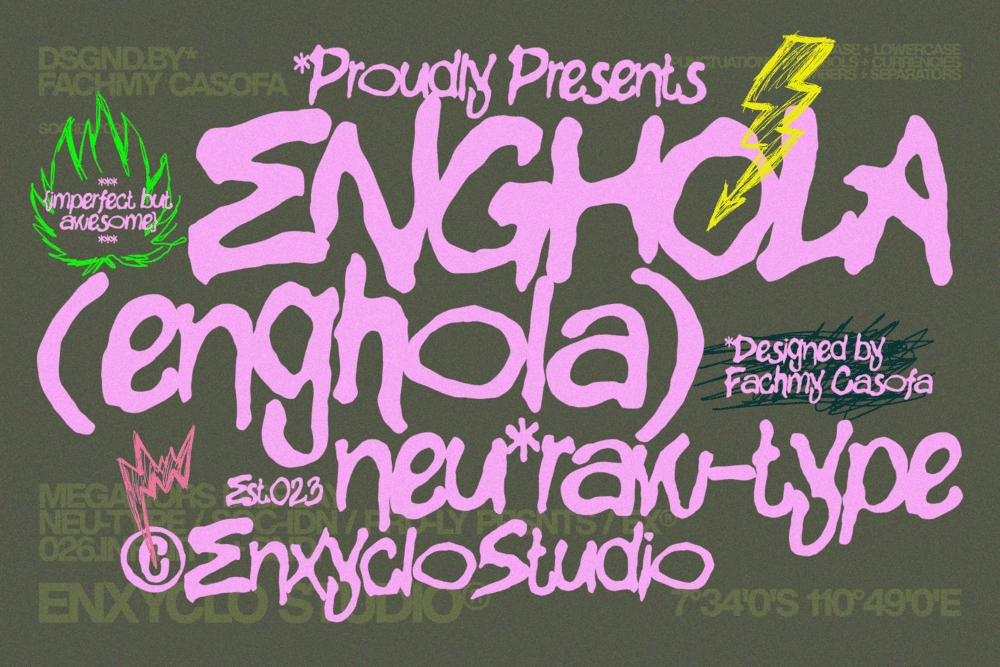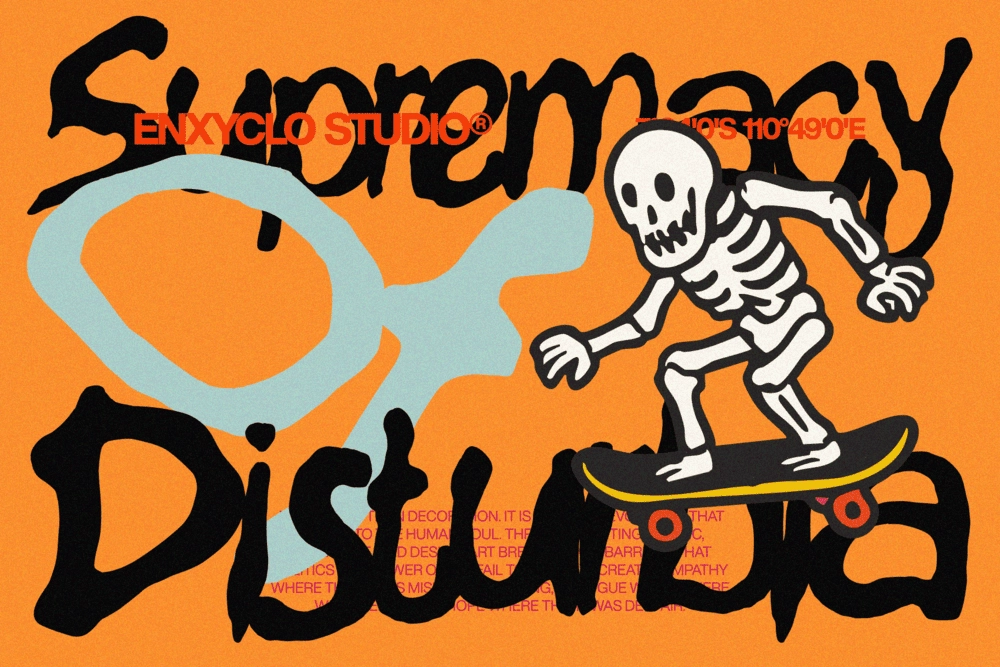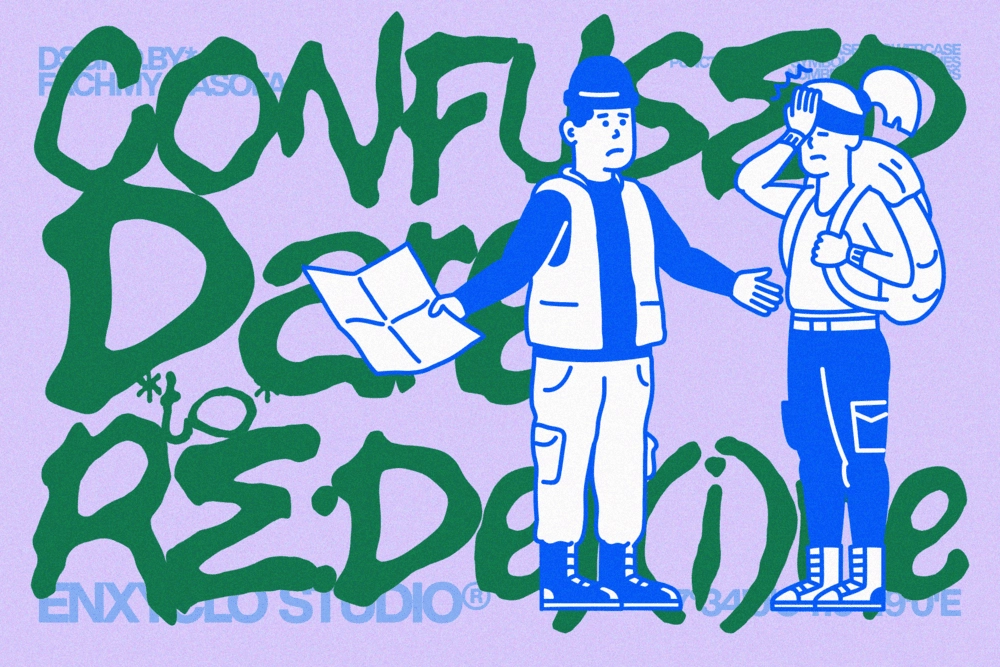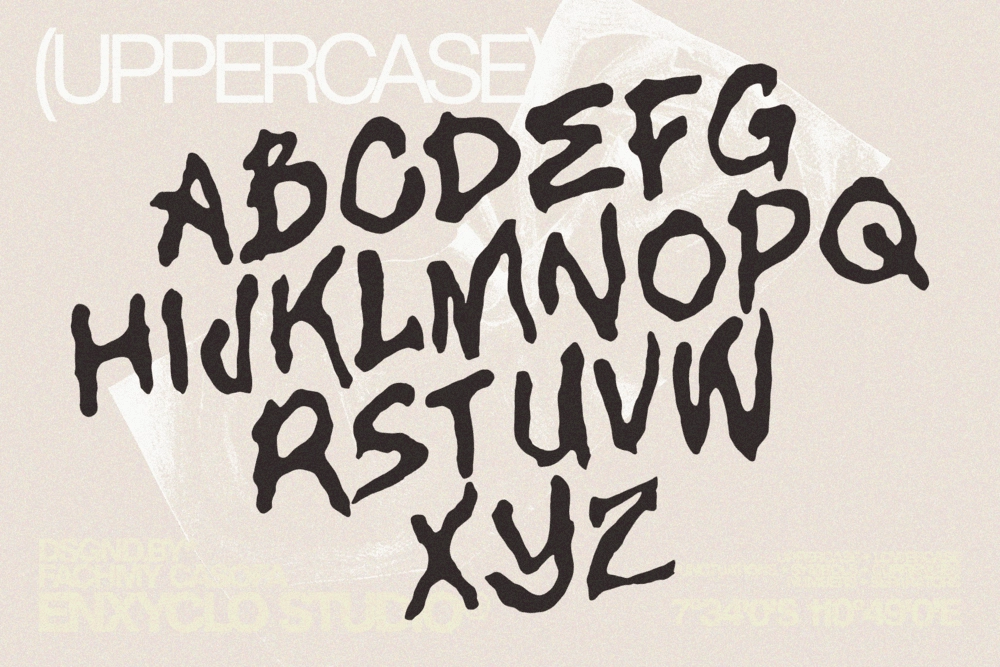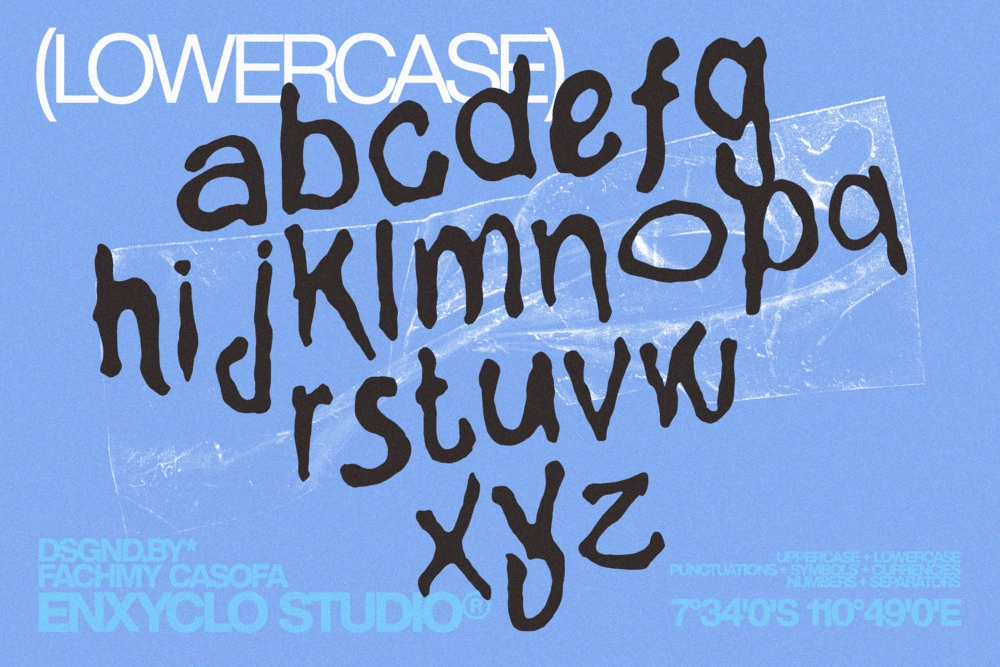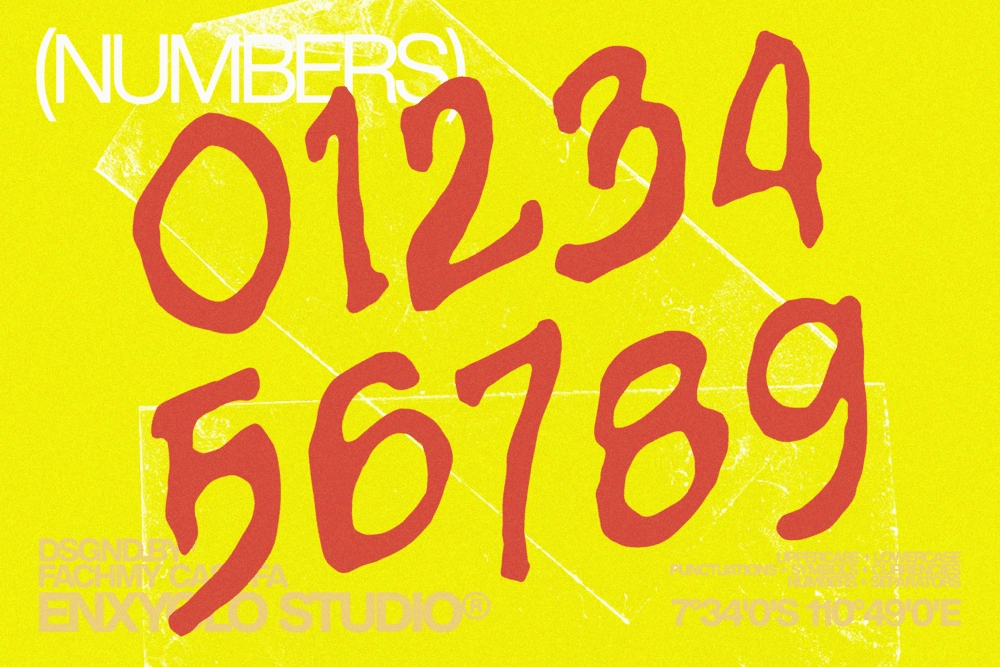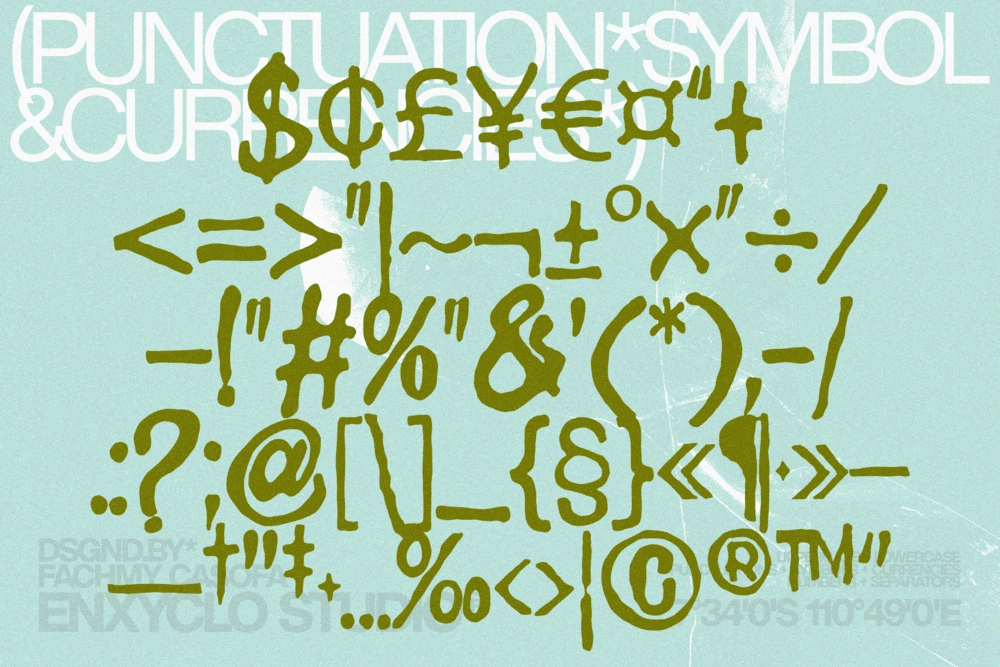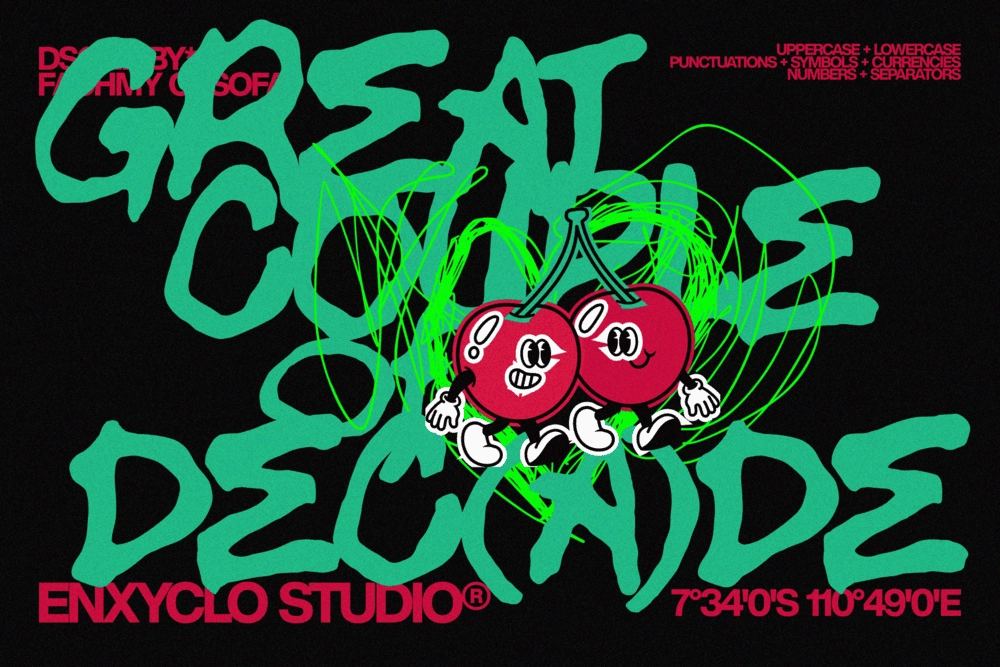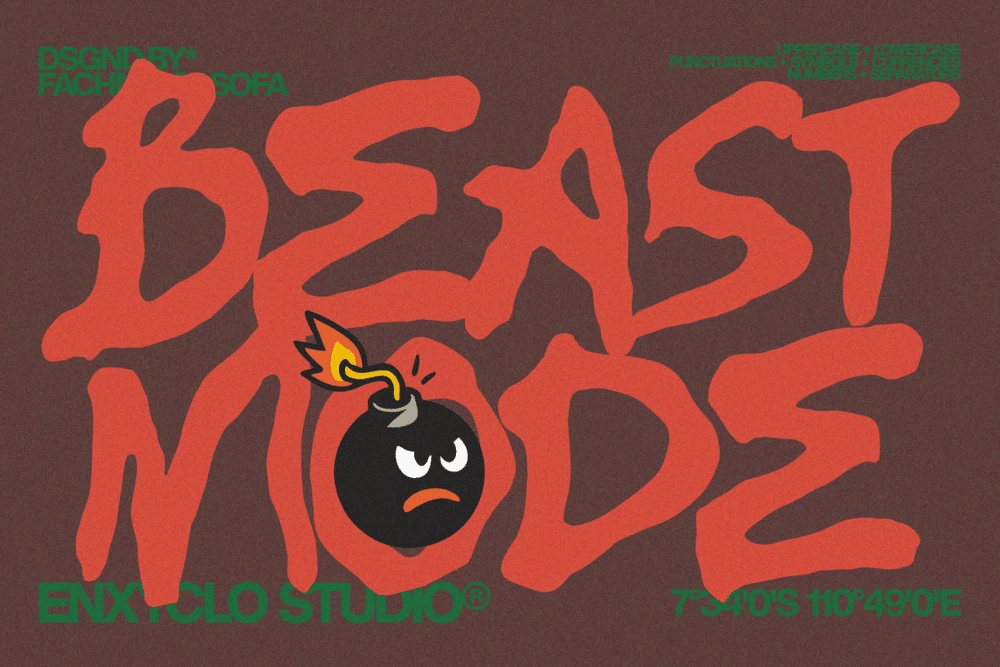
Enghola - Urban Graffiti Brush Font
Enghola - Urban Graffiti Brush Font is a fearless expressive brush typeface built for modern brands that refuse to blend in. Born from raw hand-painted strokes and urban graffiti energy, it transforms imperfection into a bold and confident visual statement.
Every curve carries attitude and every stroke feels alive. Enghola balances gritty texture with a clean, intentional structure—creating harmony between wild expression and modern control. The result is a powerful, handcrafted font that feels authentic, edgy, and highly expressive.
Designed for brands that crave character, Enghola delivers strong readability without losing personality. From creative logos to bold campaigns, it brings energy, attitude, and a striking visual presence to every design.
- Punctuation marks
- Symbol set
- Currency symbols